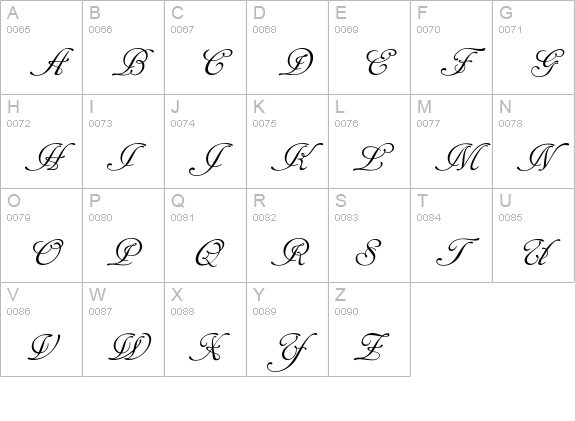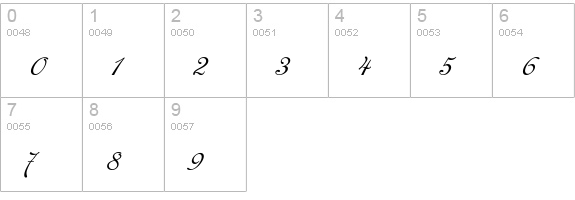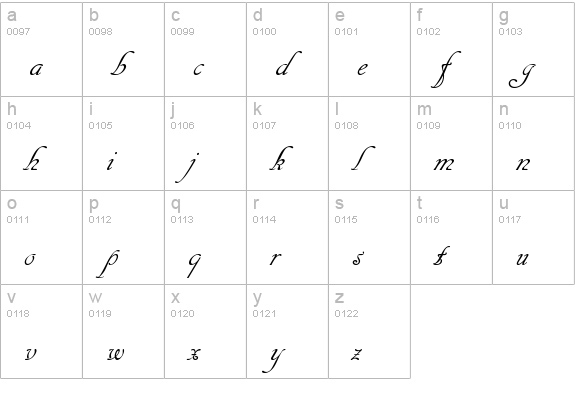
Cancellaresca Script Font Details
Cancellaresca Script is a stunning and elegant font that exudes a sense of sophistication and style. With its graceful curves and intricate details, this script font is perfect for adding a touch of class to any project. Whether you're designing invitations, branding materials, or any other type of creative work, Cancellaresca Script will make your text stand out. What's even better is that Cancellaresca Script is completely free to download at FontsMarket.com. This means you can add this beautiful font to your collection without any cost, allowing you to create stunning designs without breaking the bank. Don't miss out on the opportunity to elevate your projects with the timeless beauty of Cancellaresca Script. Download it today and let your creativity shine!